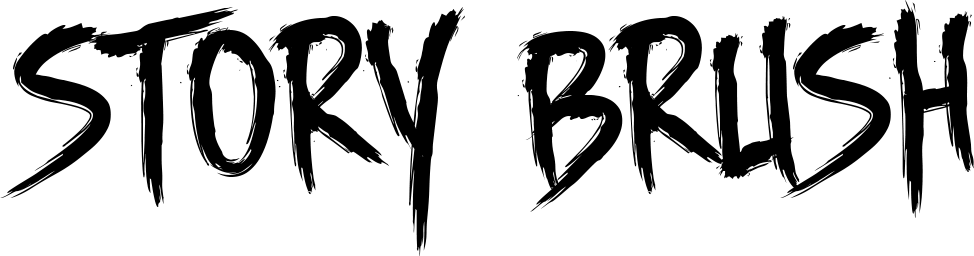
DHF Story Brush Font
DHF Story Brush is a horror font that does not support lowercase letters, punctuation, and numbers. All characters of this font are designed in two different styles. Using DHF Story Brush will not hurt you and can be a reasonable and profitable risk. This font makes your graphic content more attractive by conveying a sense of fear and excitement to the audience.
STORY BRUSH is the high detailed brush font that has over 240 glyphs. Coming with 2 Version, Regular and slanted. This font is equipped with OpenType feature to make custom feel for your design. This font is designed for t-shirts design, logos, horror design, grunge & etc.